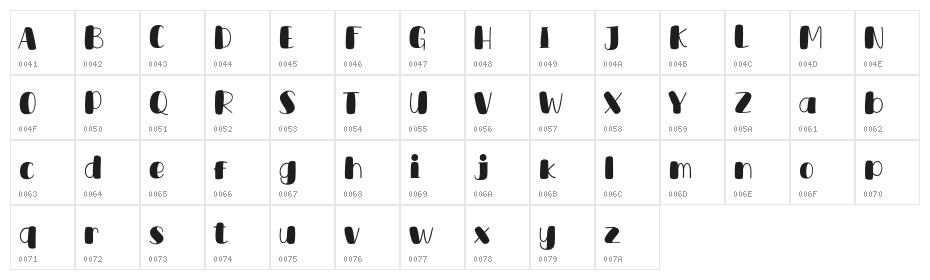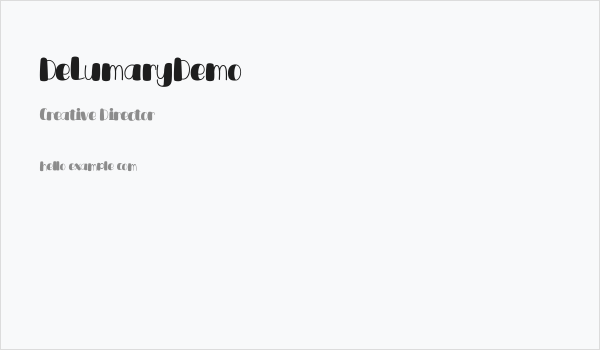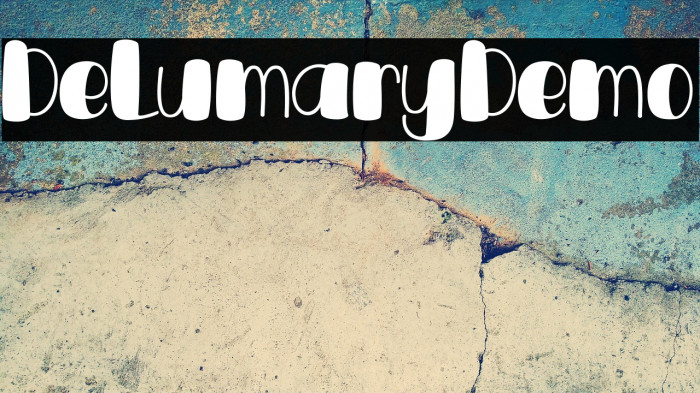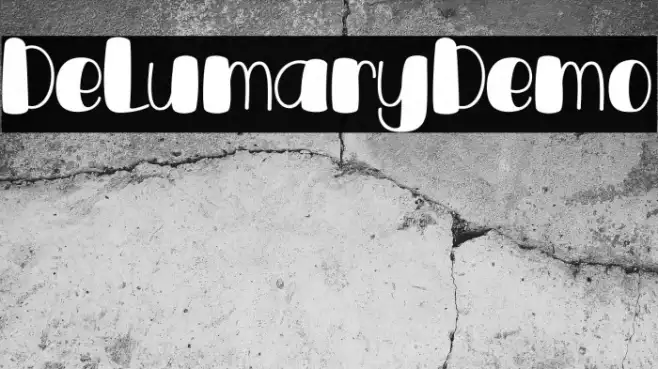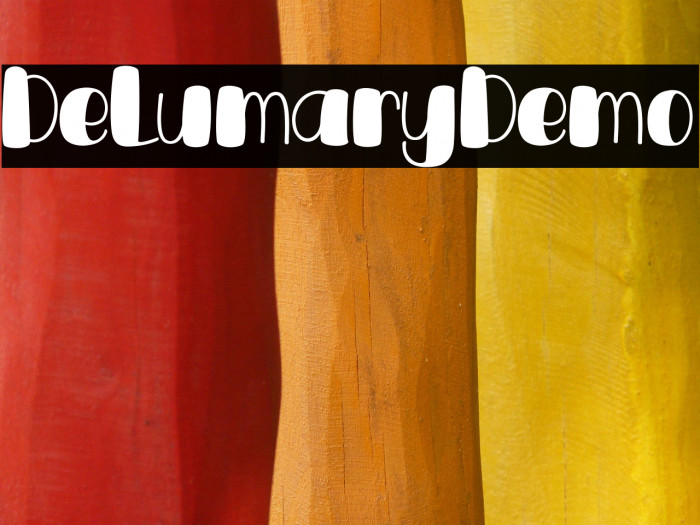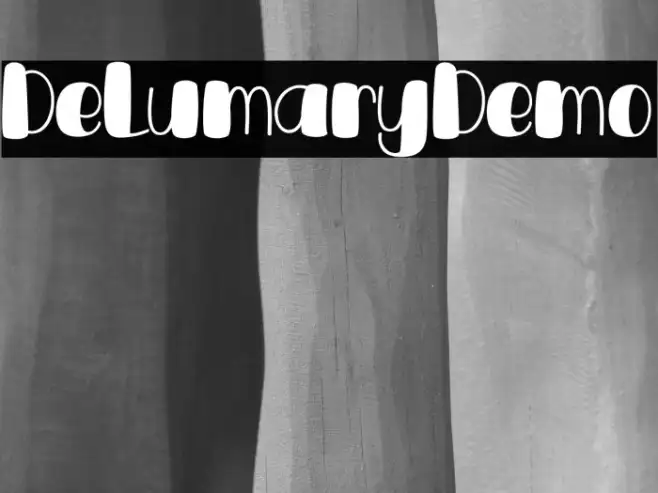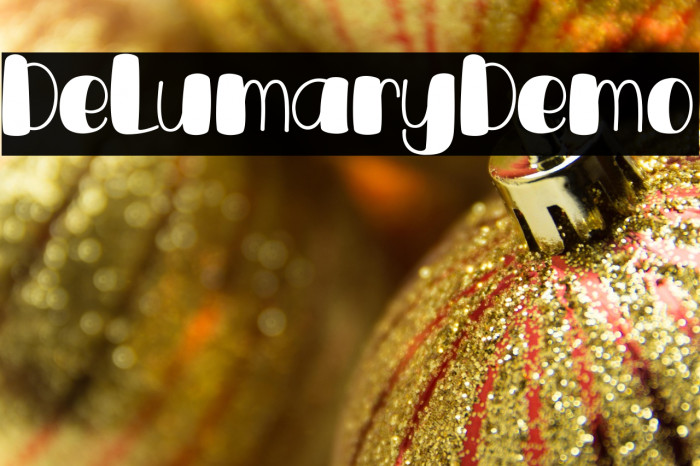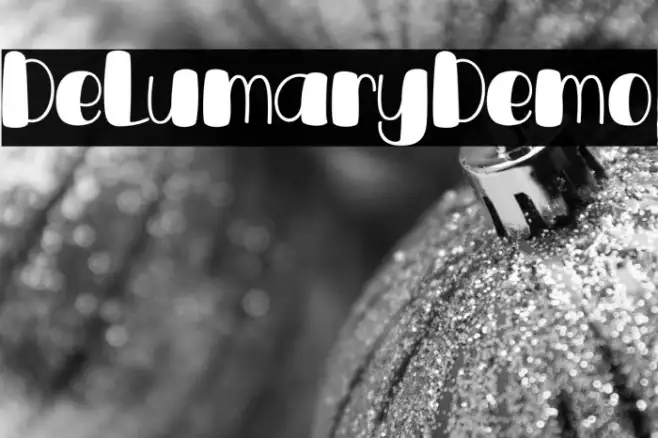
DeLumaryDemo Font
DeLumaryDemo Description
This font features a playful and bold design with a handwritten style. The characters have a whimsical, flowing appearance, combining thick and thin strokes that create a dynamic visual rhythm. The uppercase letters are bold and rounded, while the lowercase letters maintain a consistent style with a slightly more delicate touch. The font's unique character is further enhanced by its smooth curves and distinctive loops, making it stand out in any design. Its artistic flair makes it suitable for creative projects that require a touch of personality and charm.